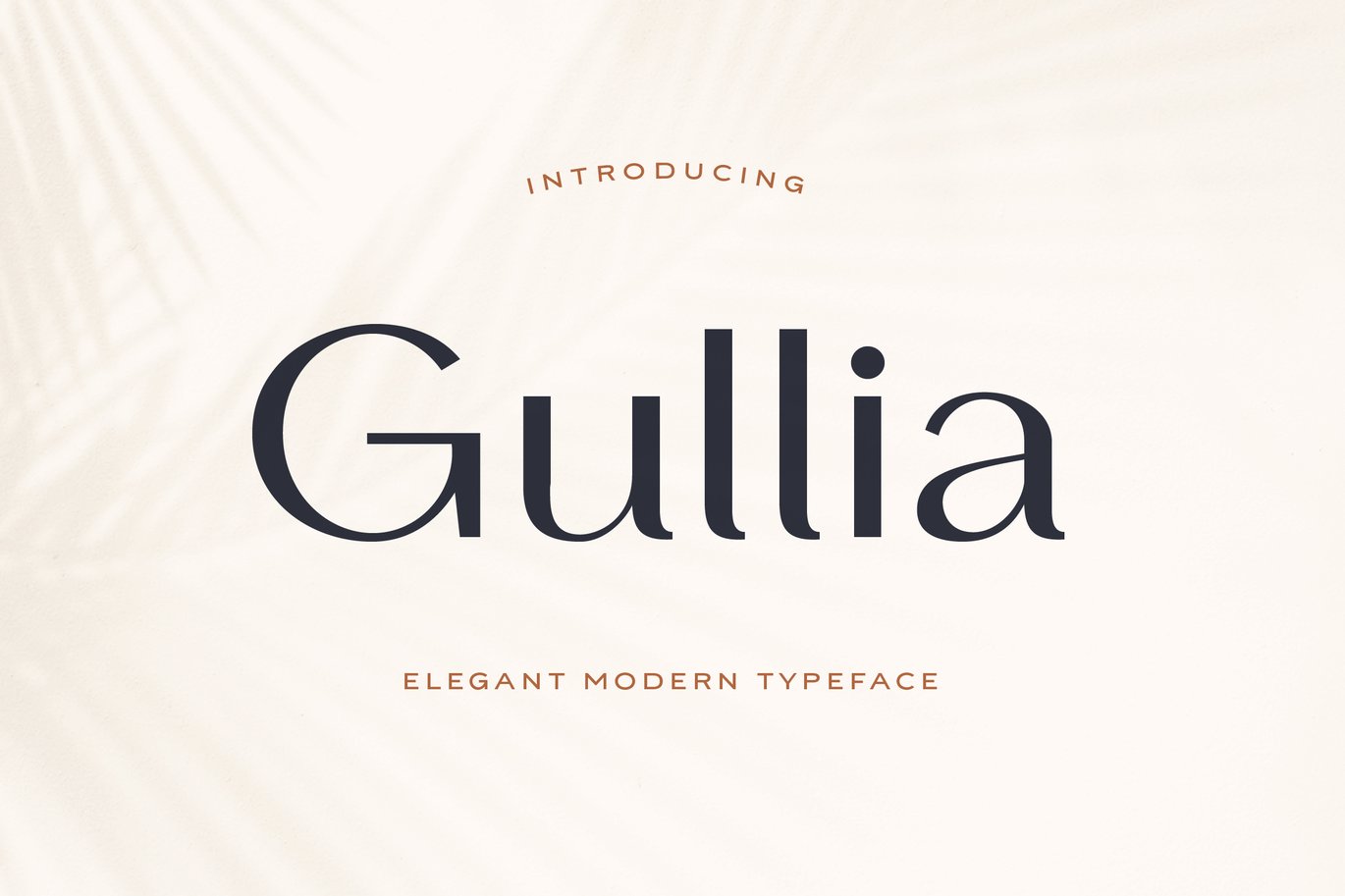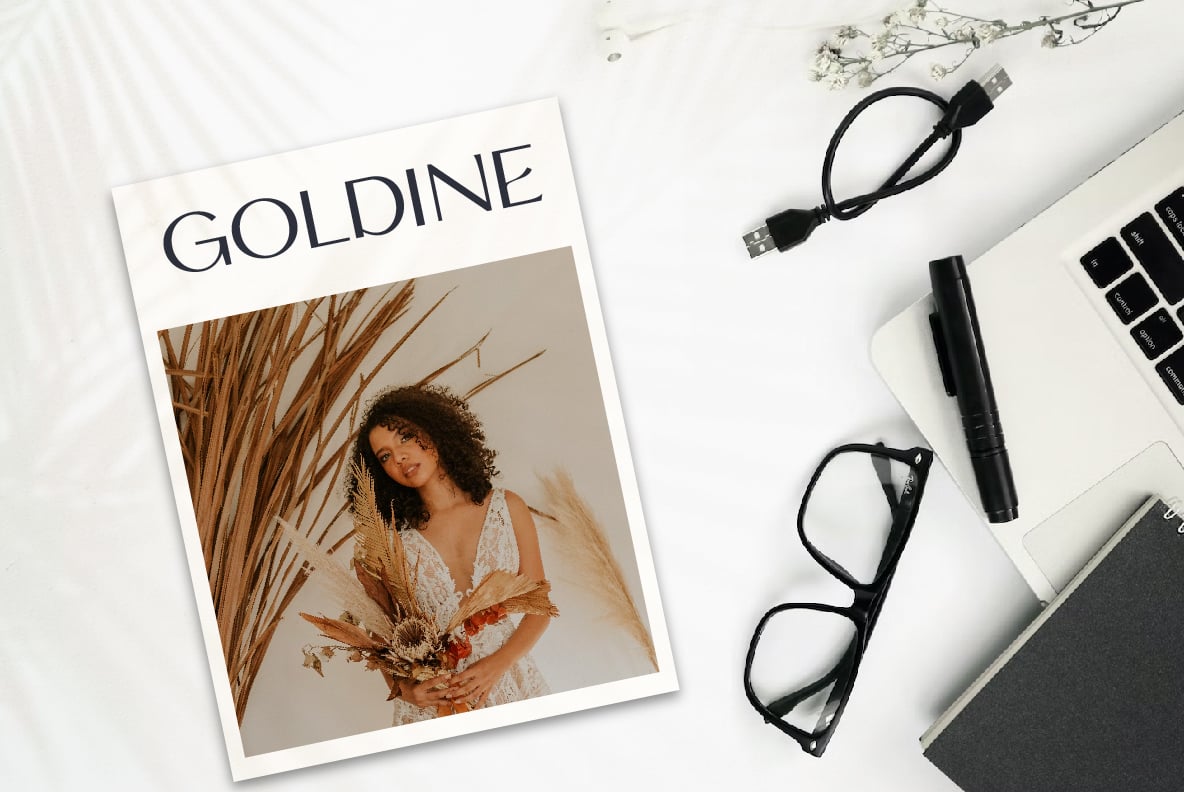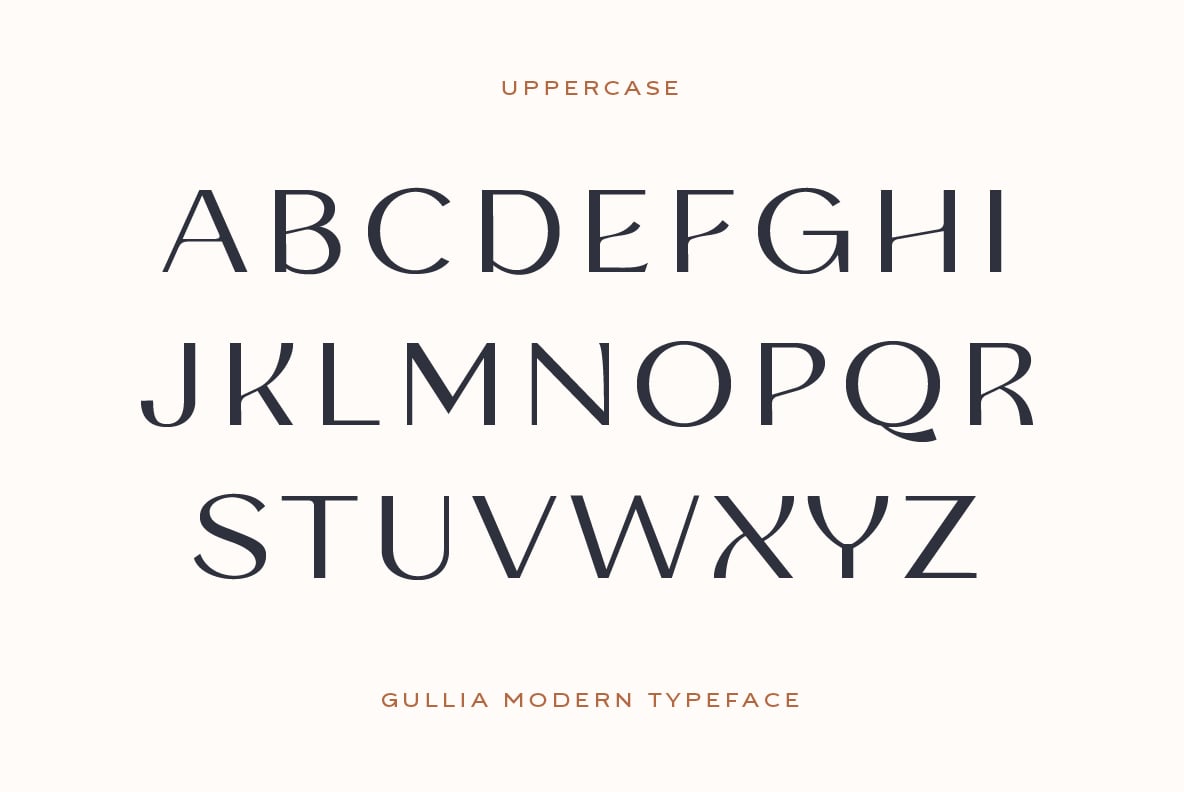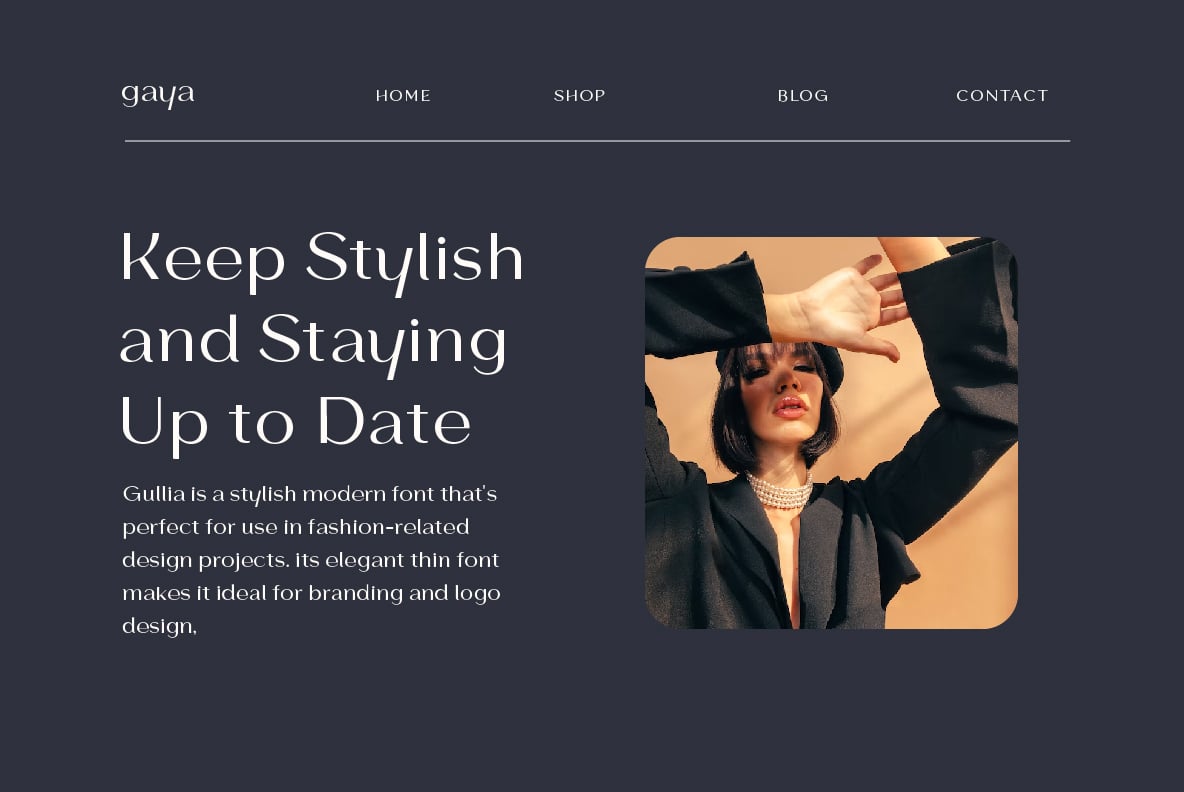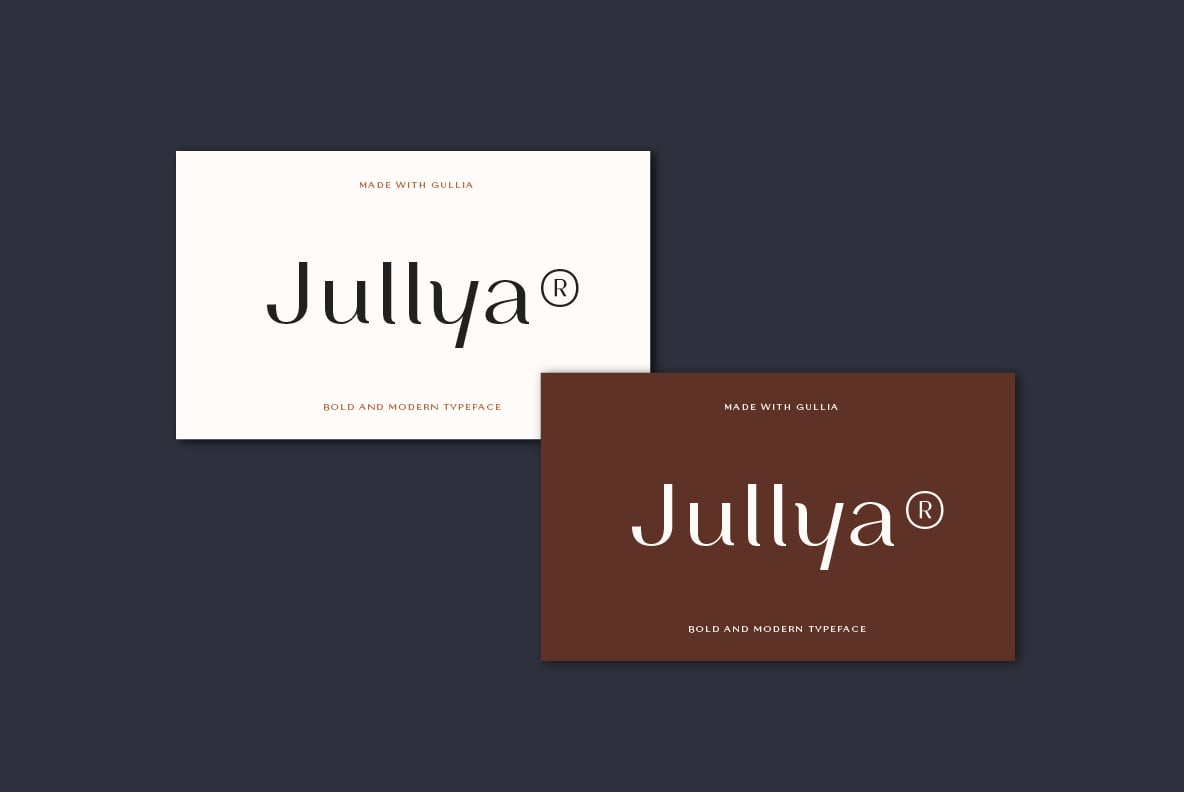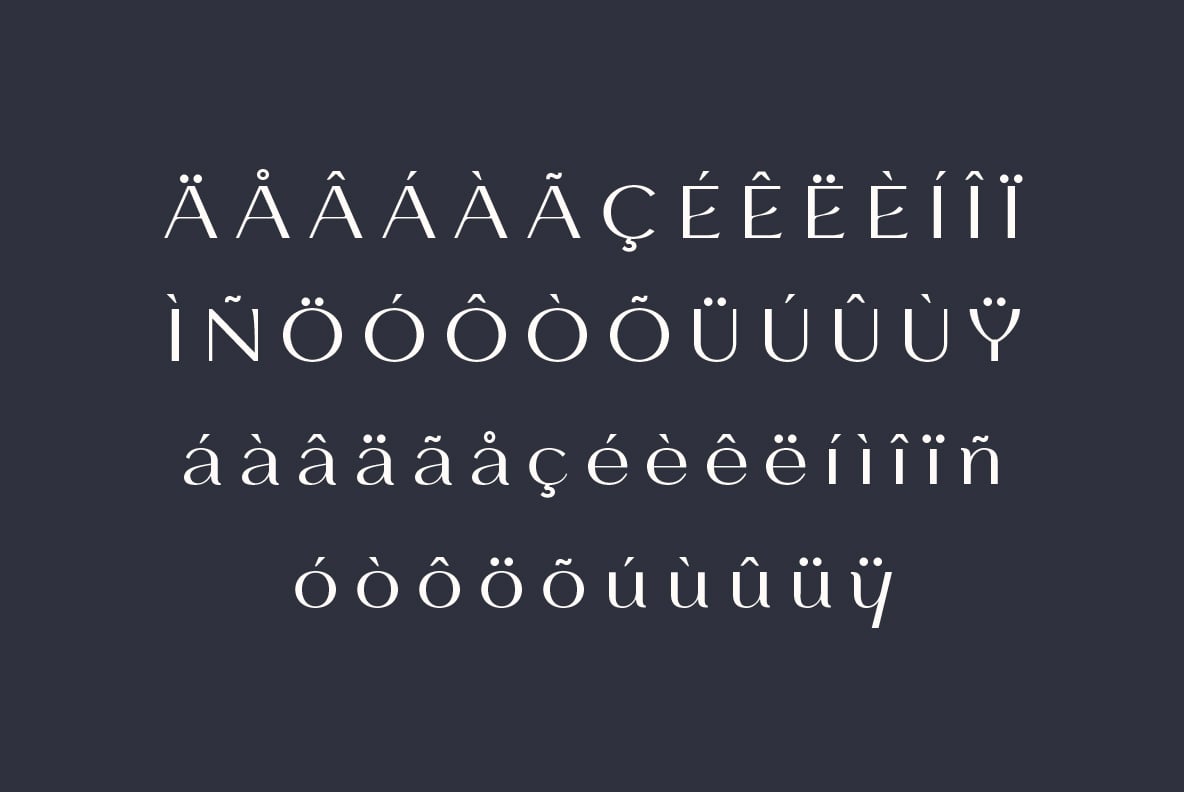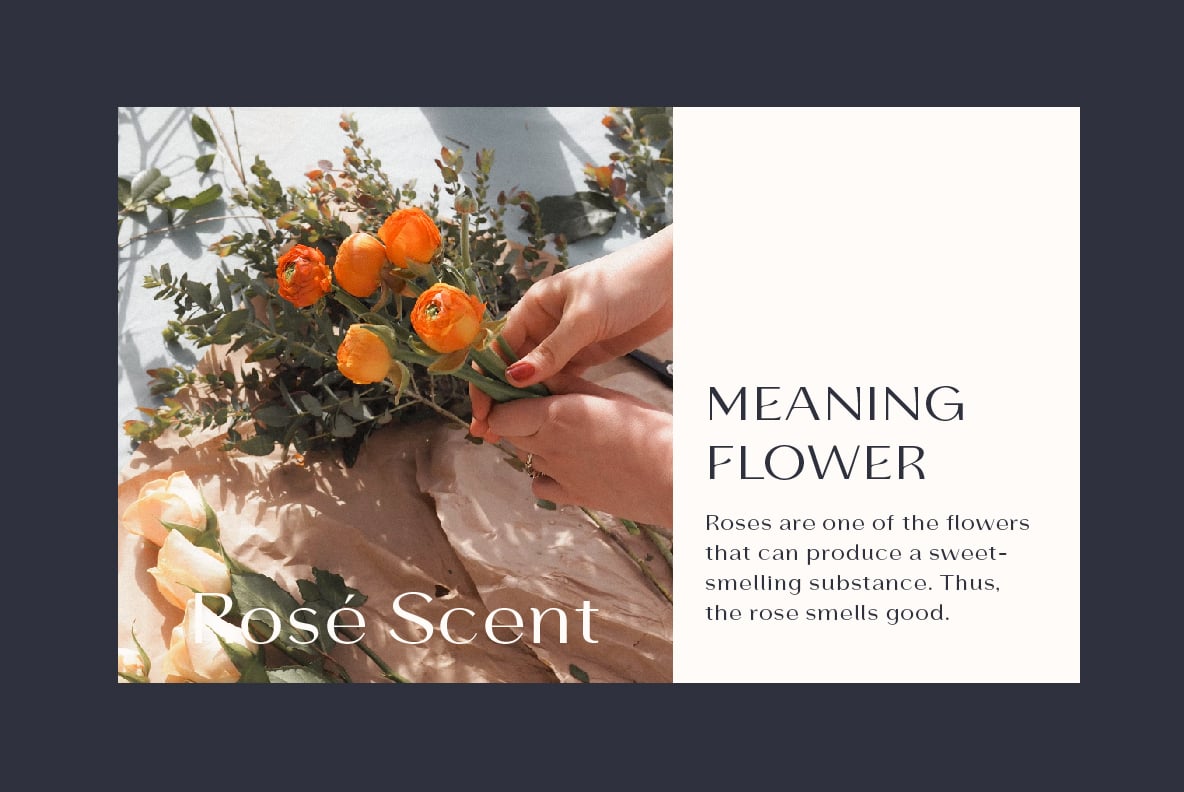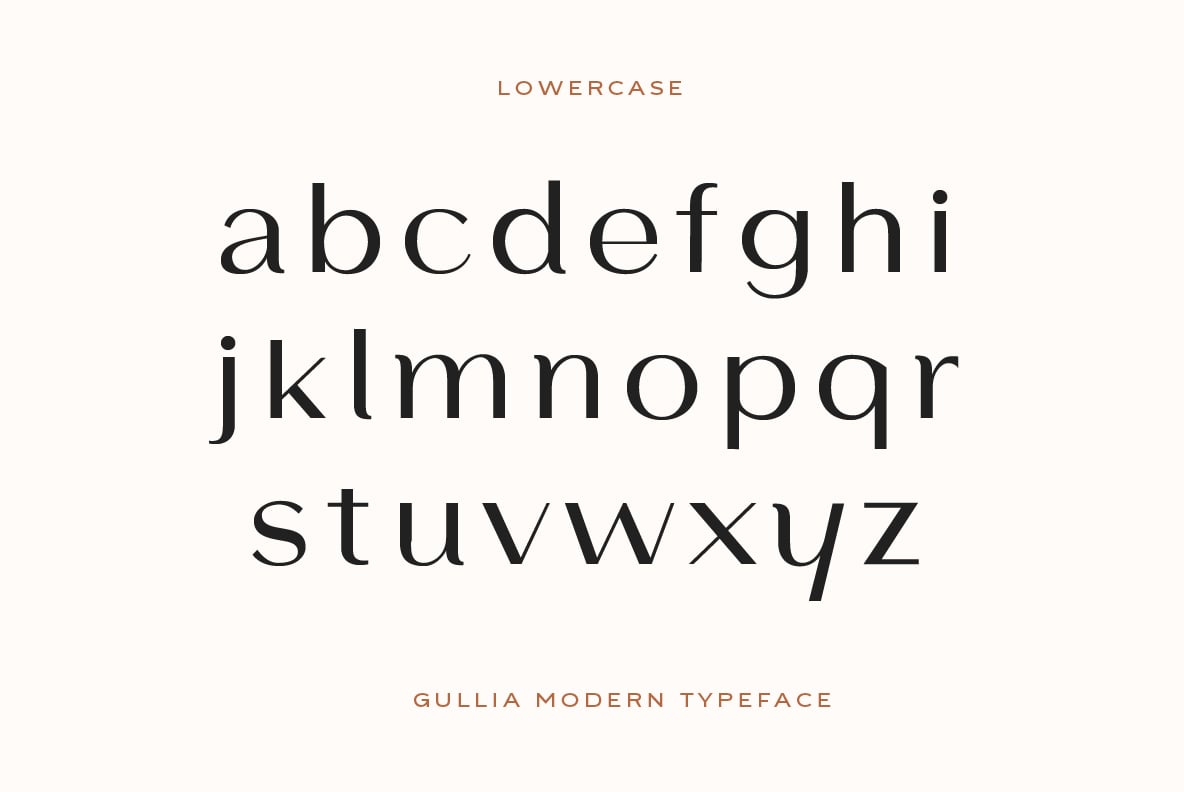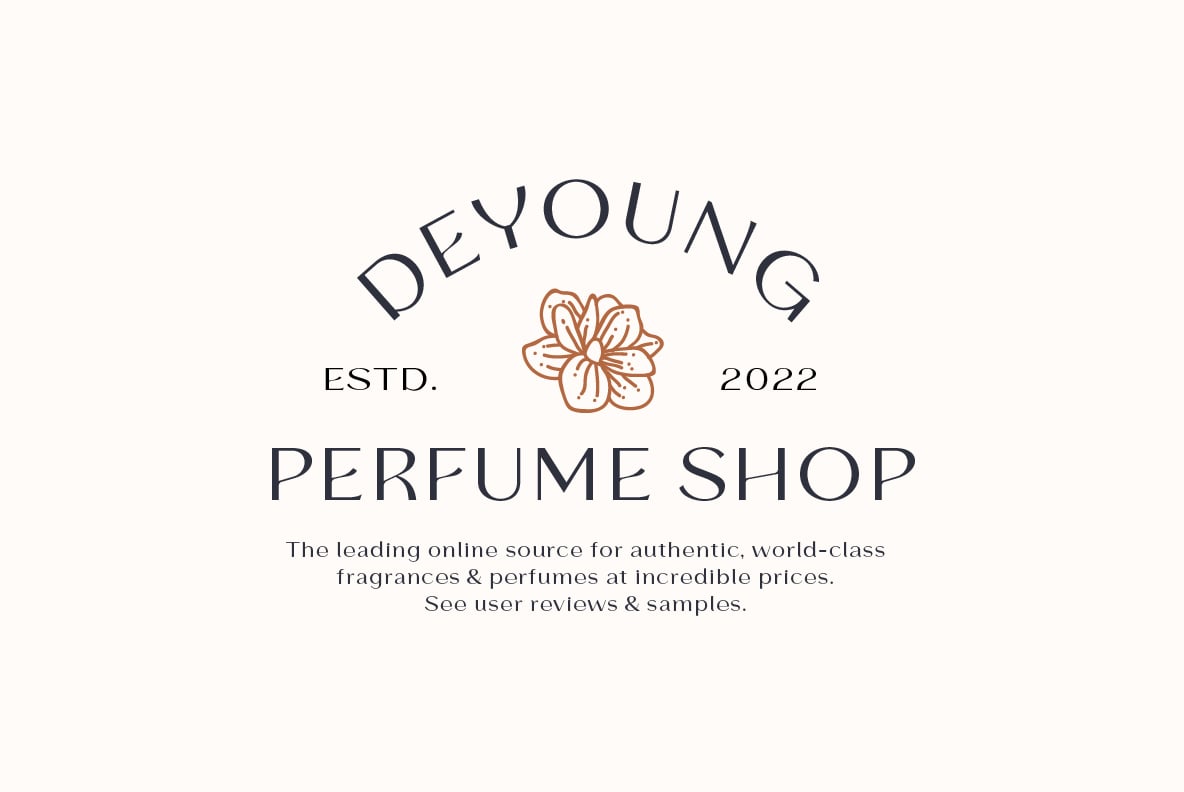
Gullia Elegant Fonts
Gullia is a stylish modern font that’s perfect for use in fashion-related design projects.
Its elegant thin font makes it ideal for branding and logo design, while low legibility
height makes it perfect for use in websites, advertising, and other types of communications.
Gullia Modern Font is perfect for adding a touch of luxury
and elegance to your designs. This stylish font was created with
care to be perfect for use in modern fashion logos,
websites, and marketing materials.